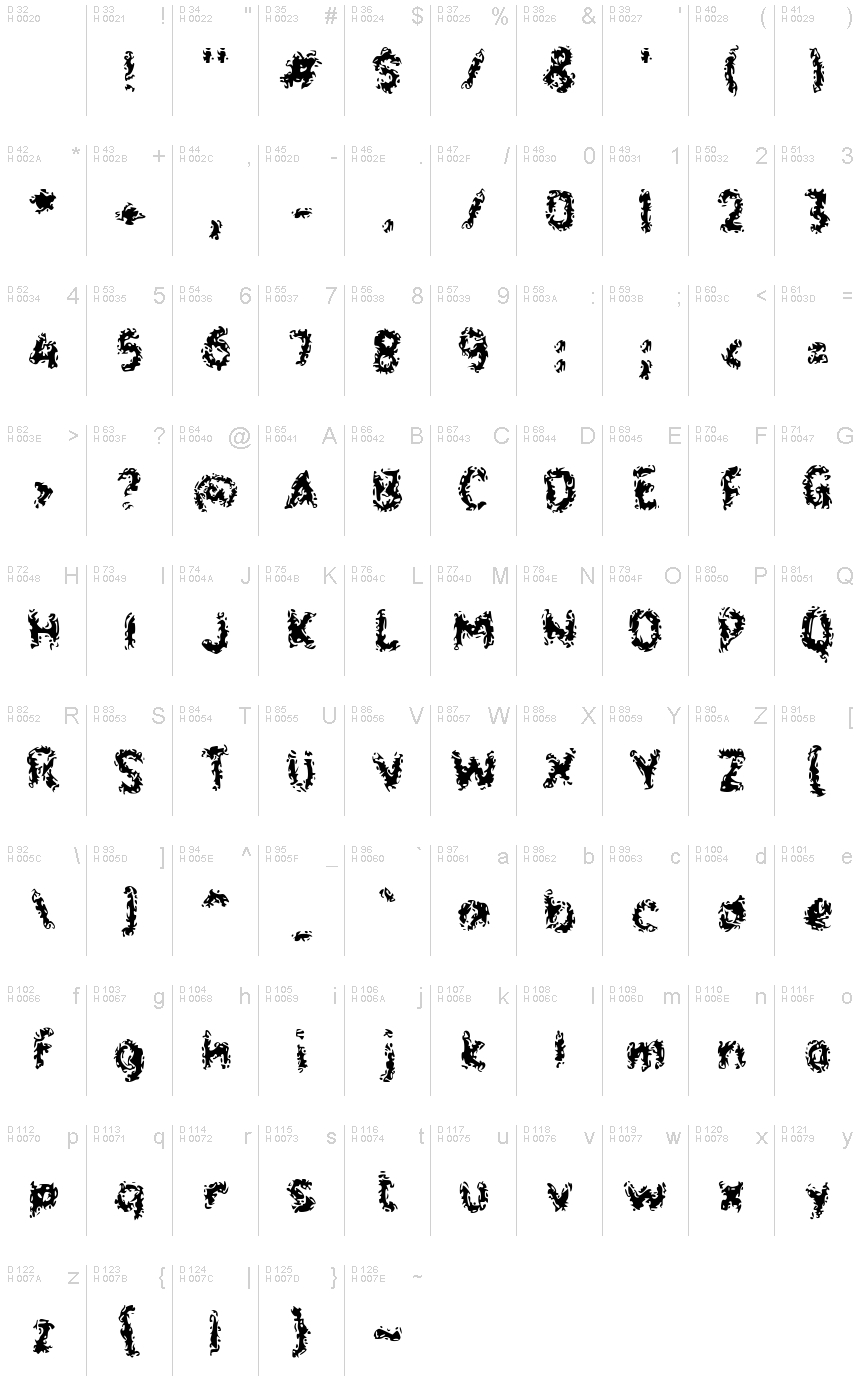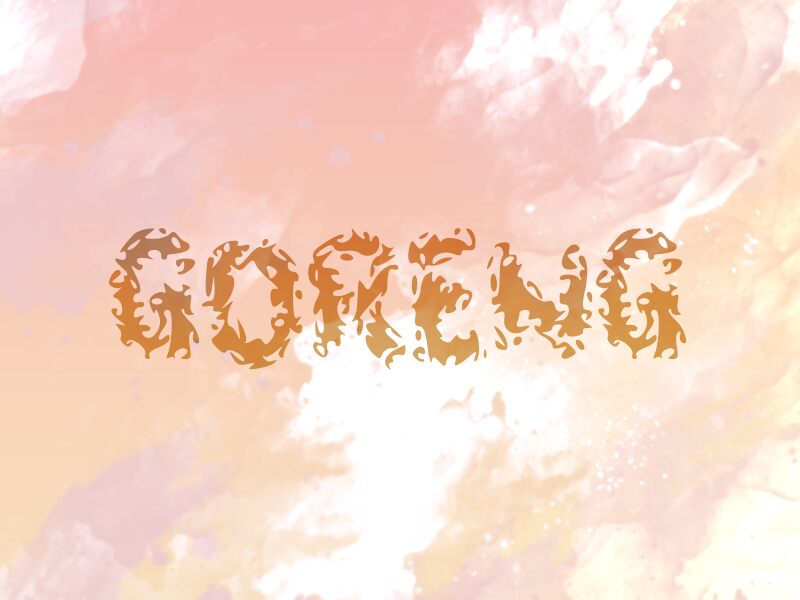
GORENG
Goreng, a captivating display font crafted by wep, exudes a bold, decorative presence with its distinctive eroded style. Evoking a sense of rugged elegance, the font's striking forms and textural elements create a visually compelling and impactful aesthetic. Goreng's unique character seamlessly blends modern flair with a touch of vintage charm, making it a standout choice for designers seeking to add depth and character to their projects.
This versatile font can elevate a wide range of design applications, from eye-catching headings and impactful logos to captivating editorial layouts and dynamic branding. Goreng's bold yet refined nature lends itself particularly well to projects that require a strong, attention-grabbing presence, such as event materials, product packaging, and outdoor advertising. Its distinctive style can also be effectively utilized to create a sense of authenticity and character in various creative endeavors.